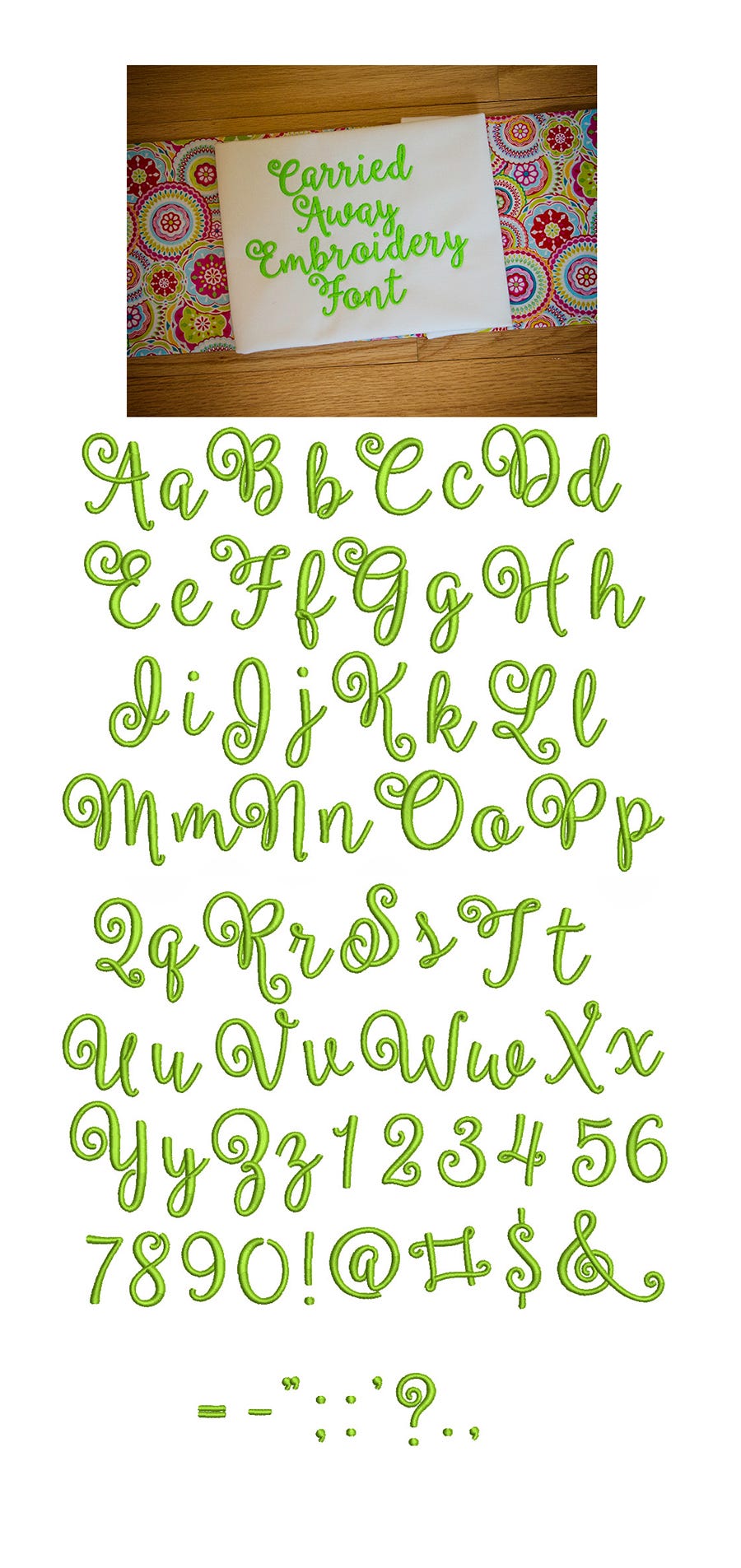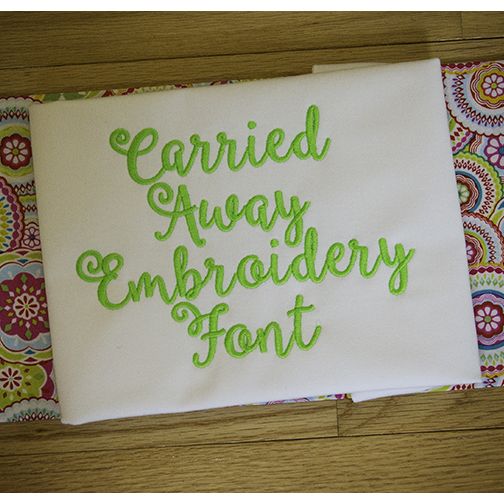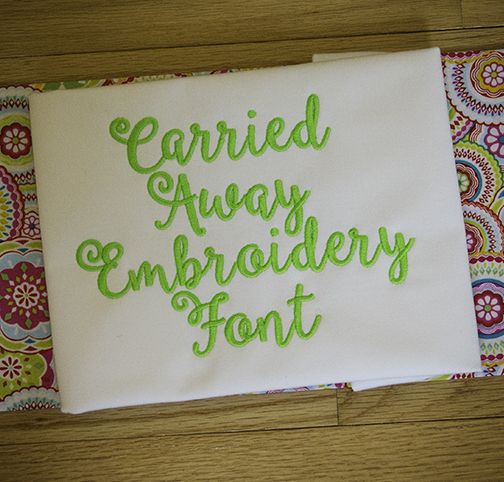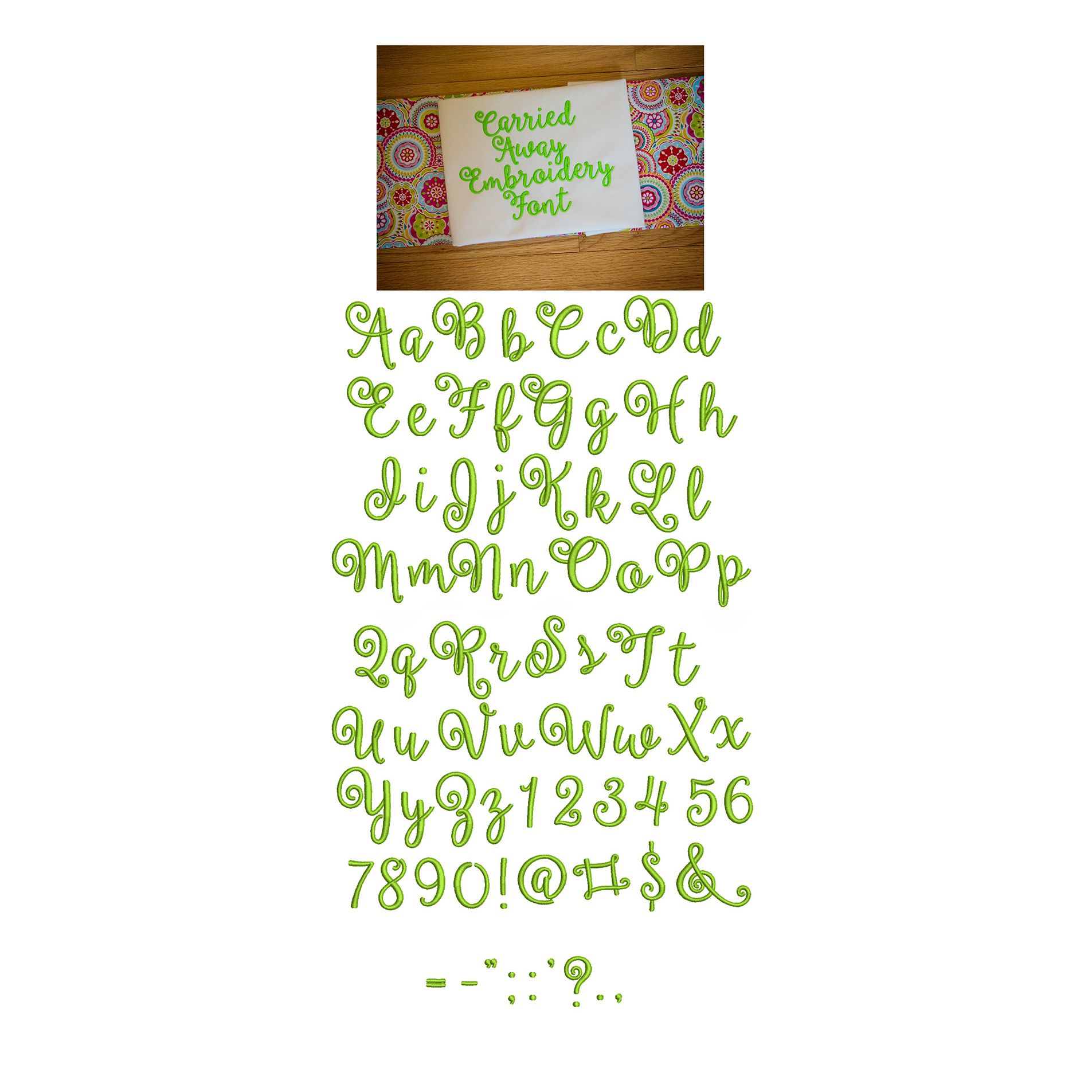
Carried Away Satin Stitch Embroidery Font
Carried Away embroidery font is a lovely, whimsical connecting cursive font.  This is a sister alphabet of our Carried Away Monogram. All of our font alphabets are 100% manually digitized to bring you maximum stitch quality.